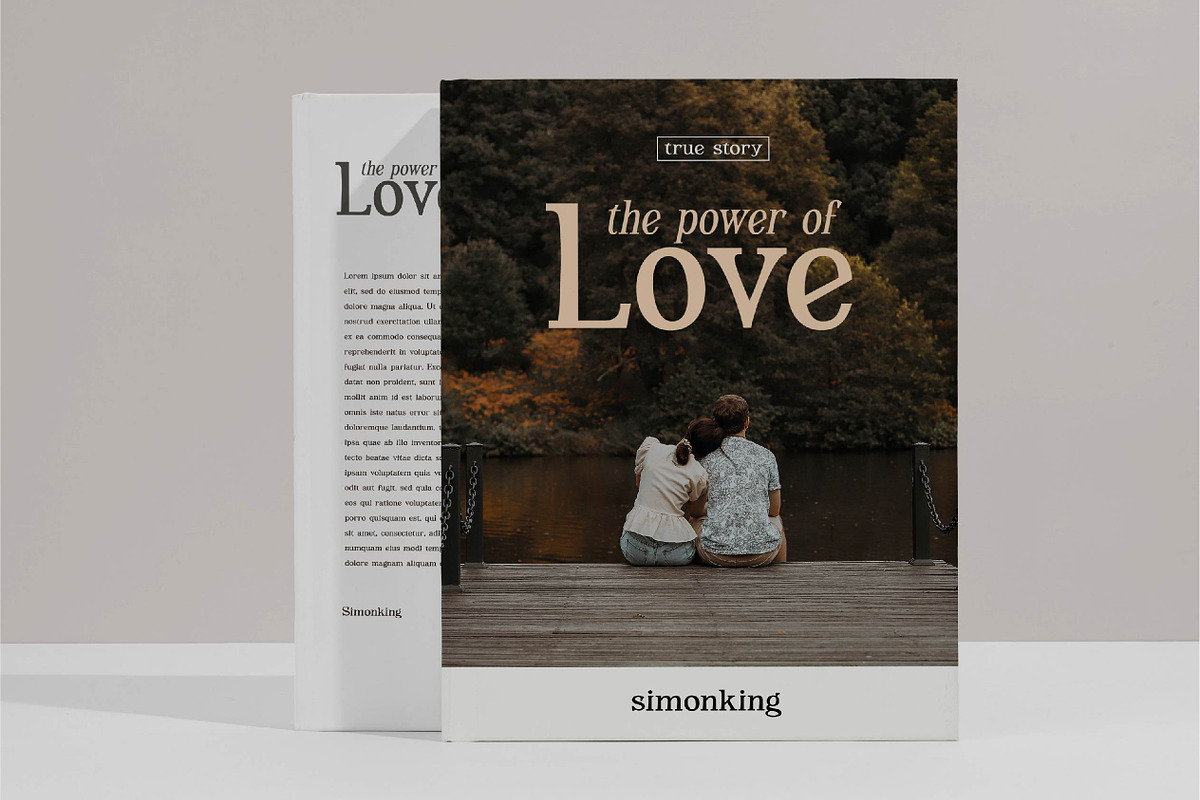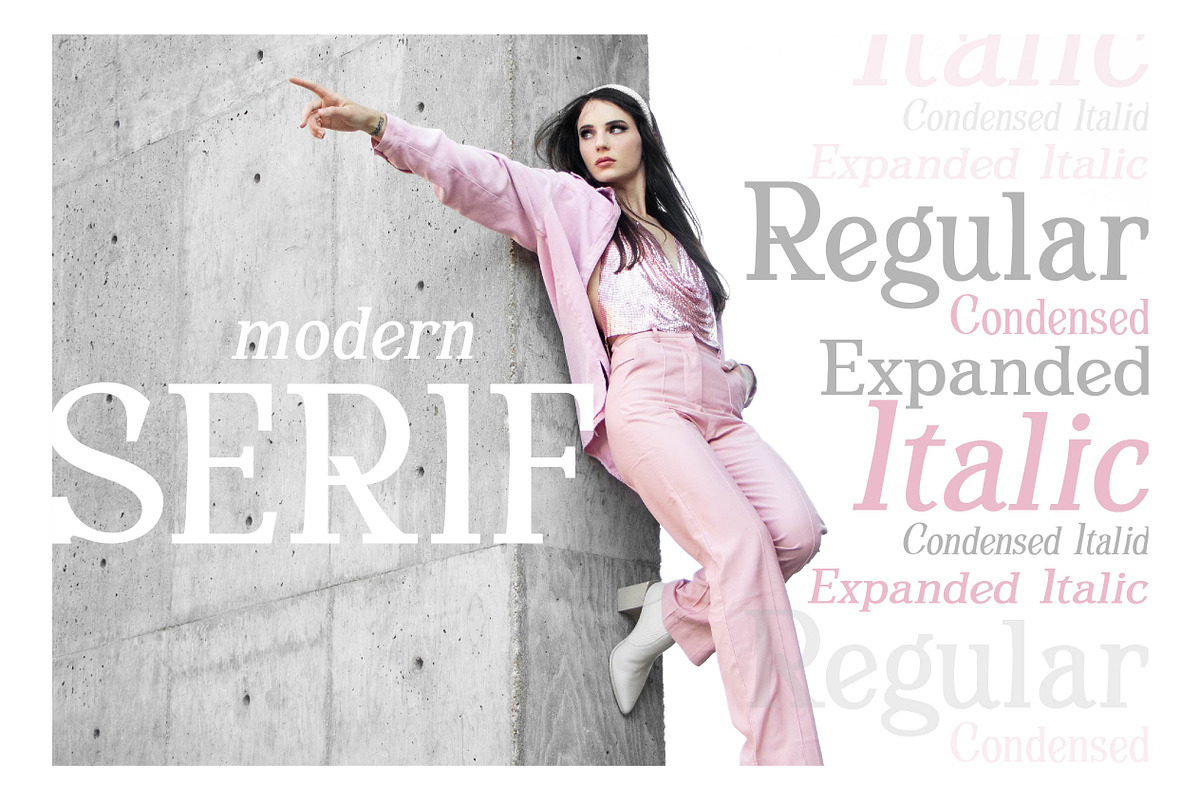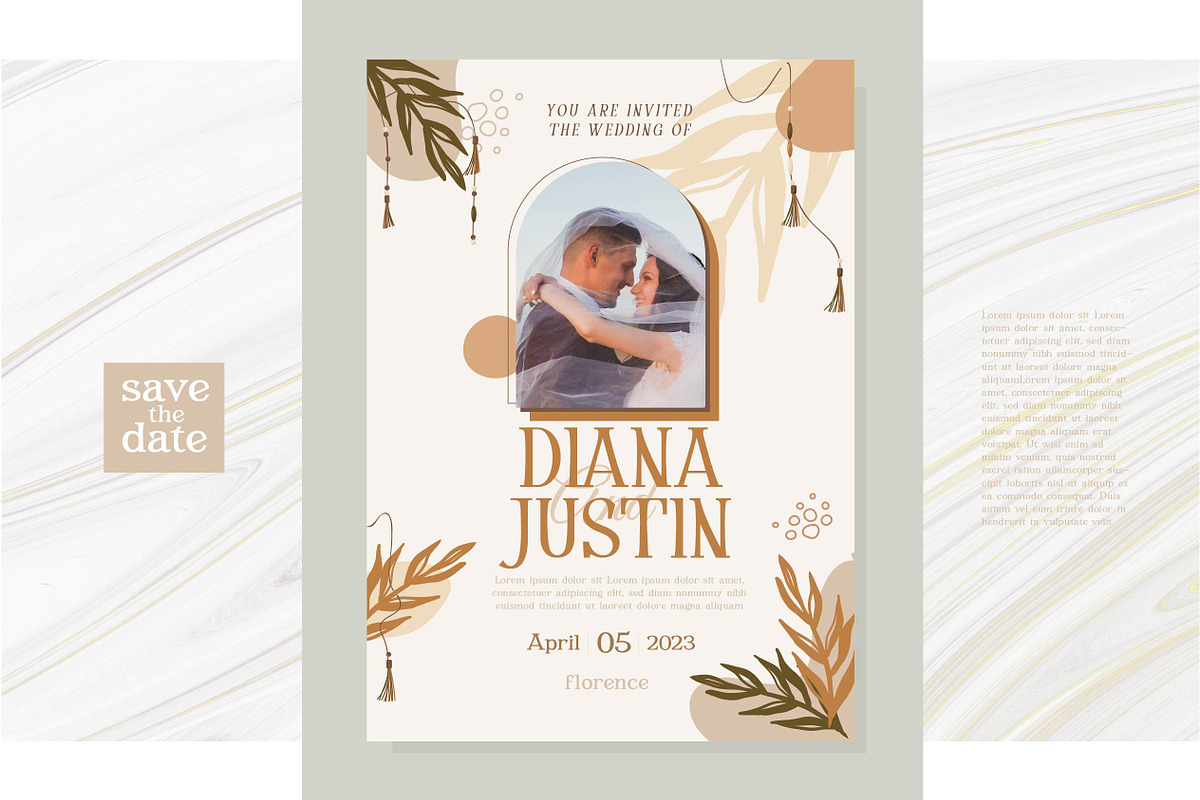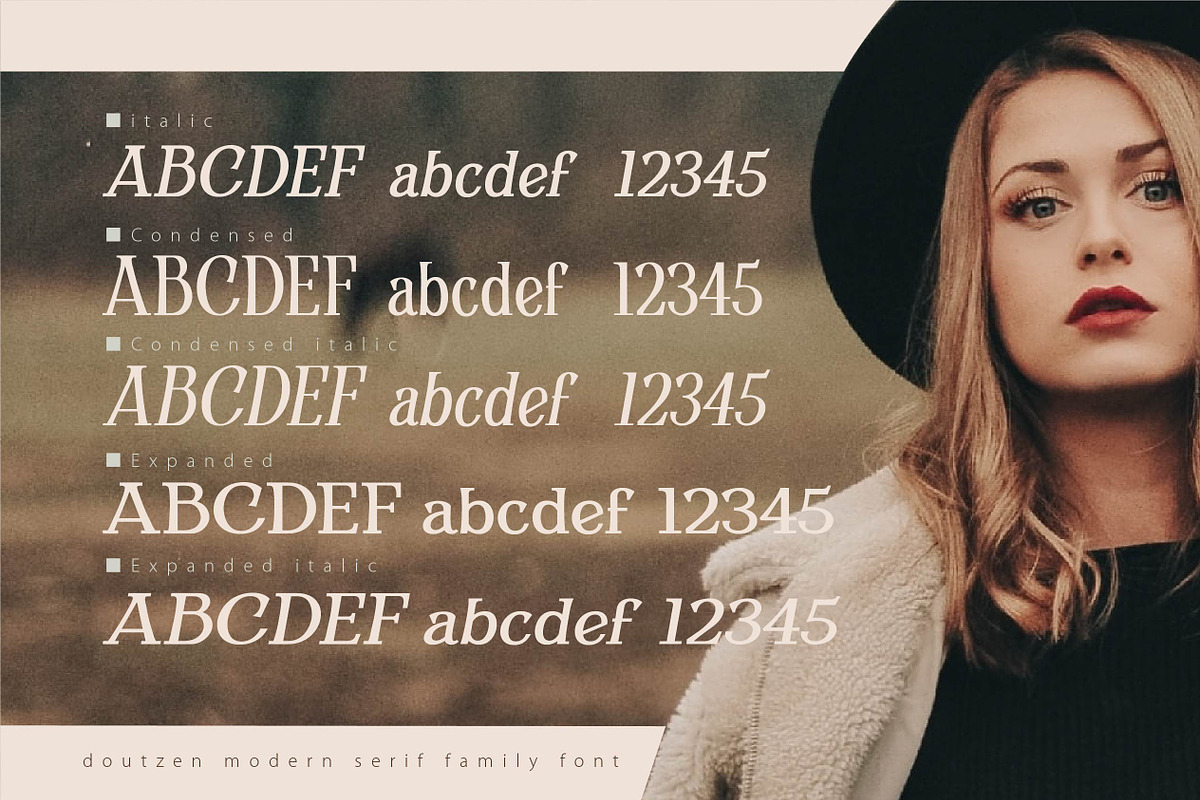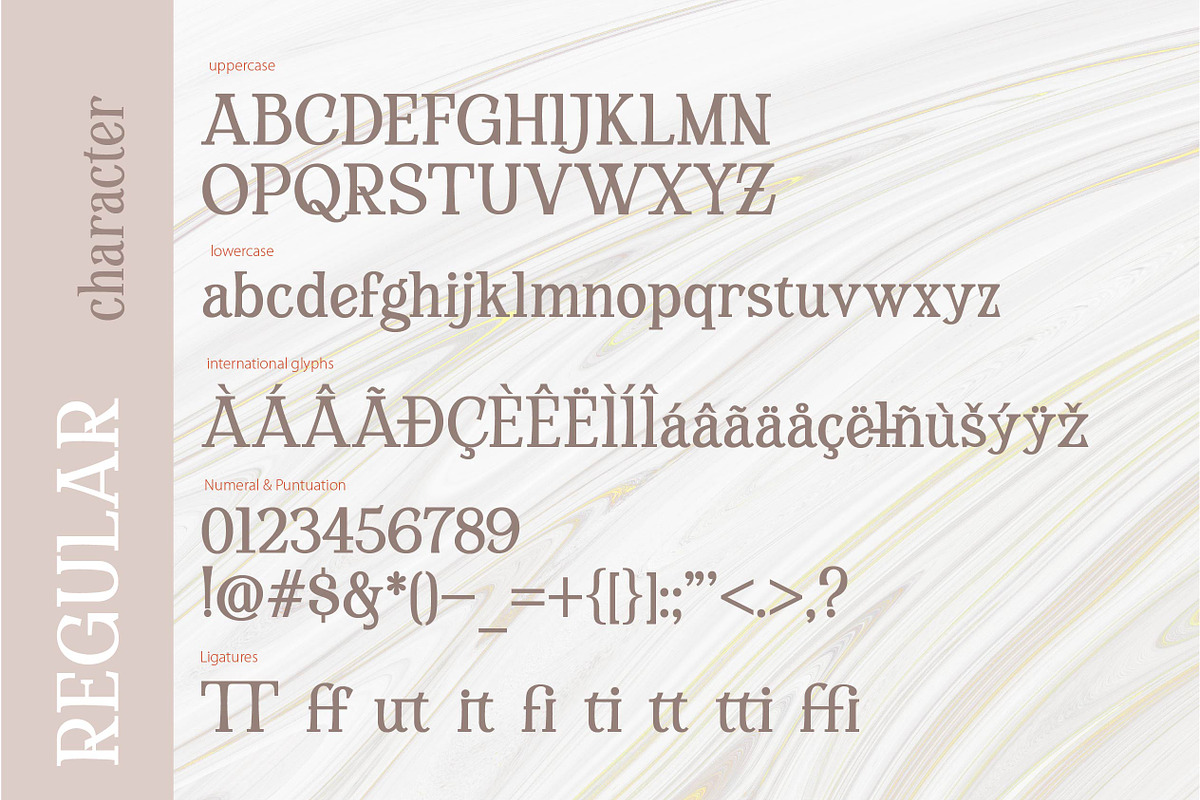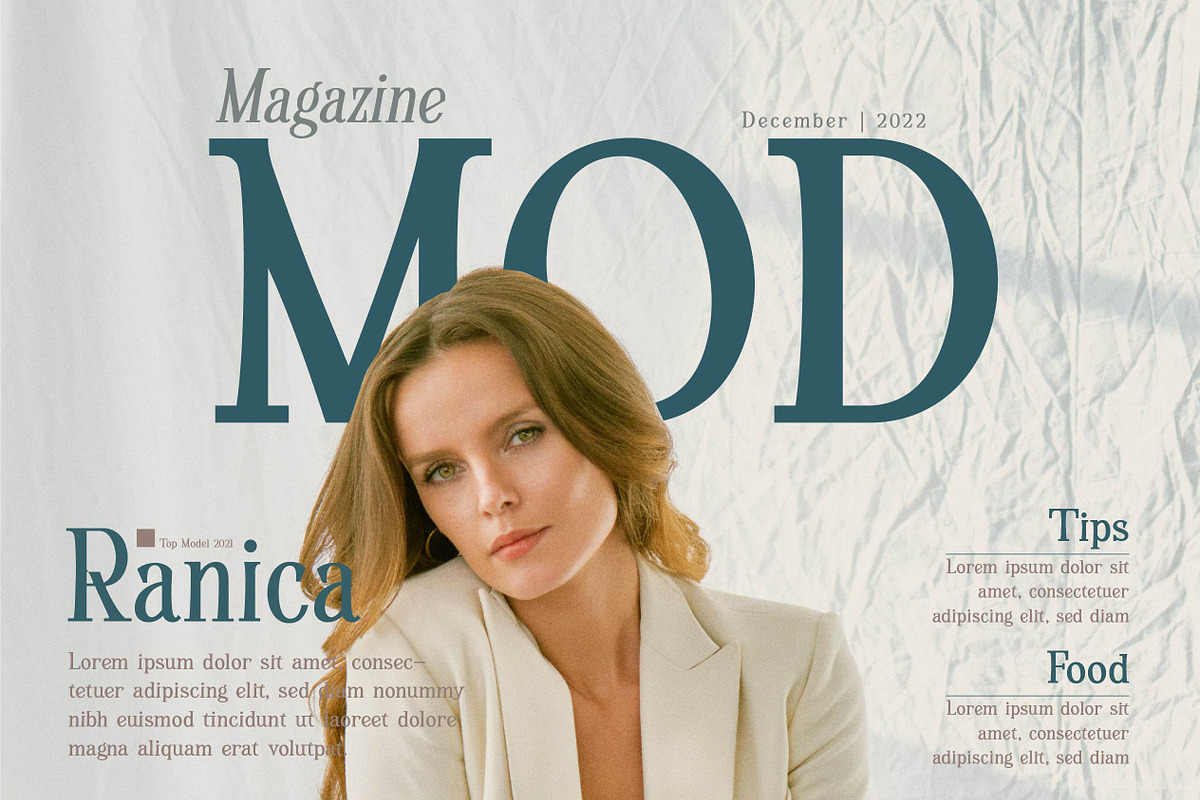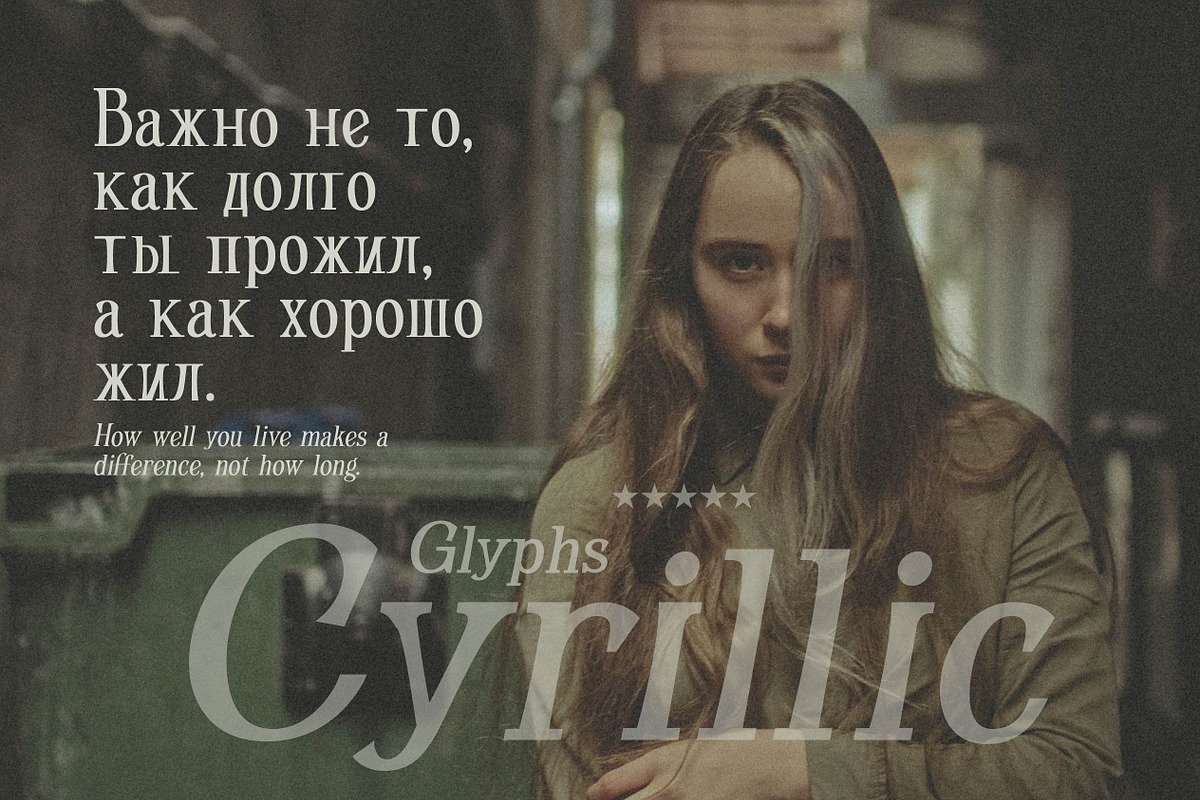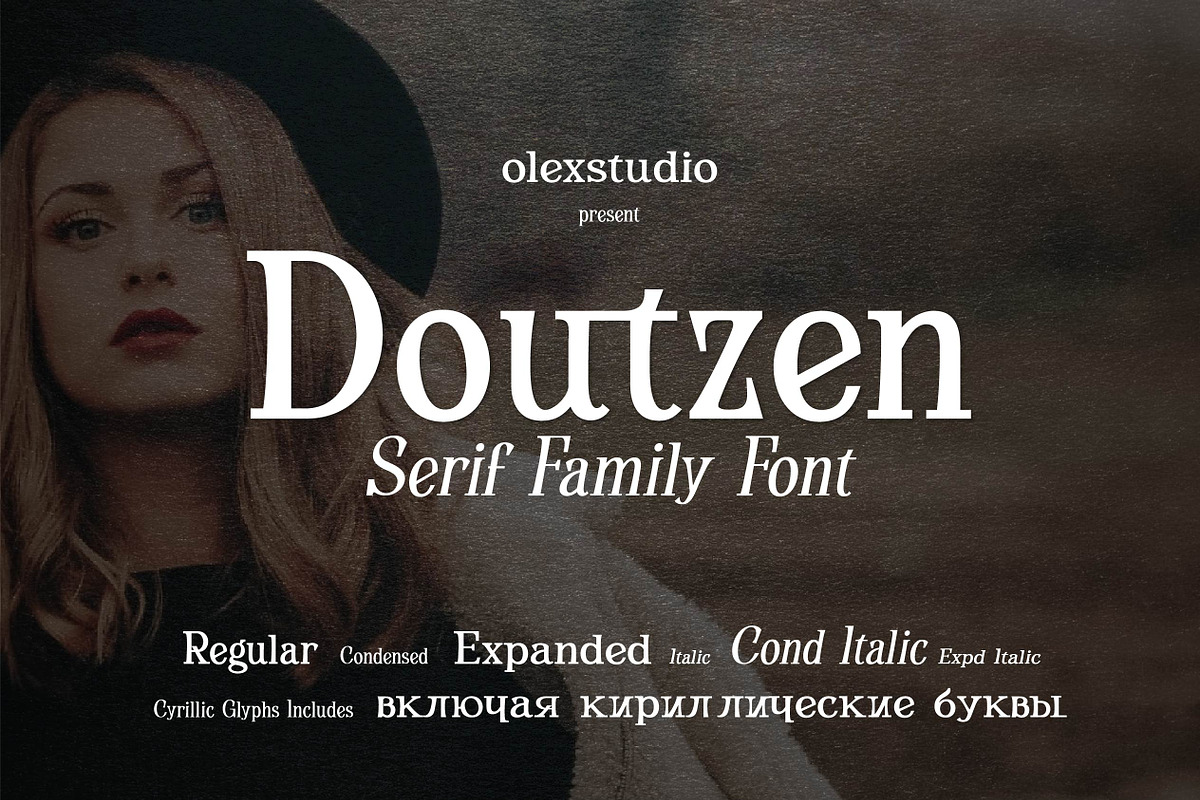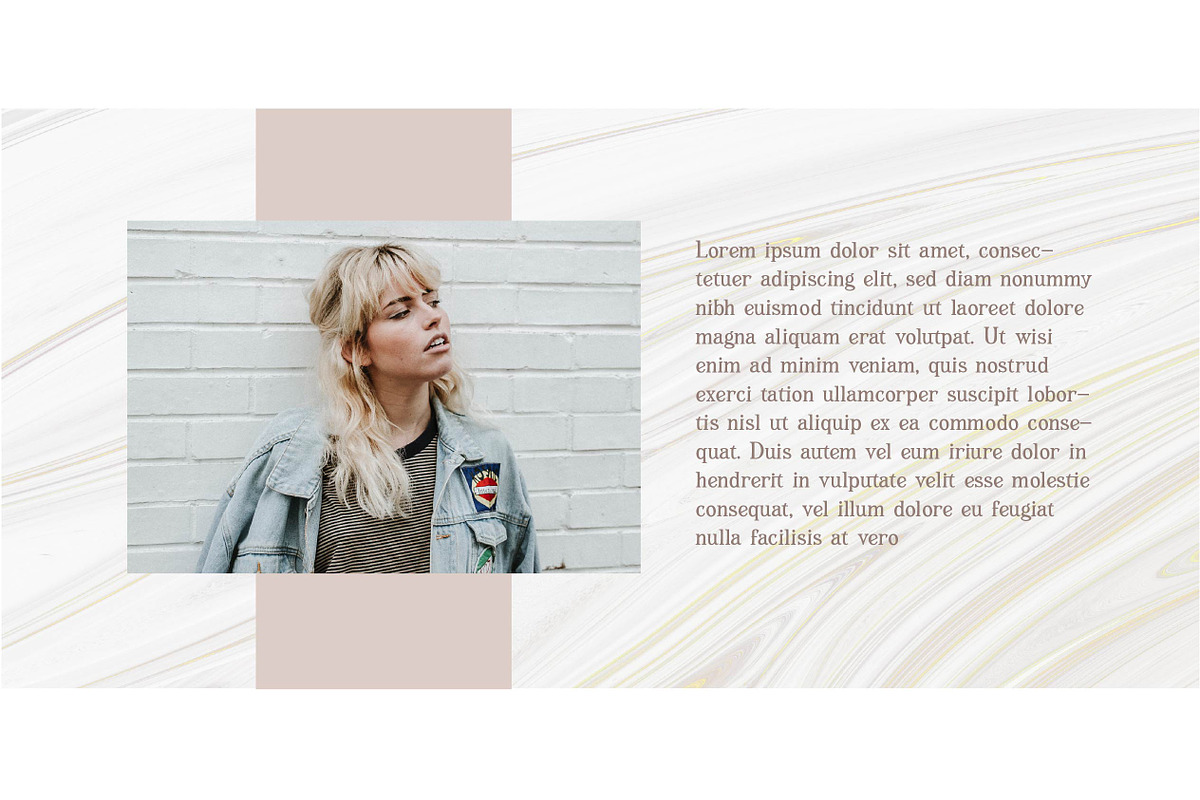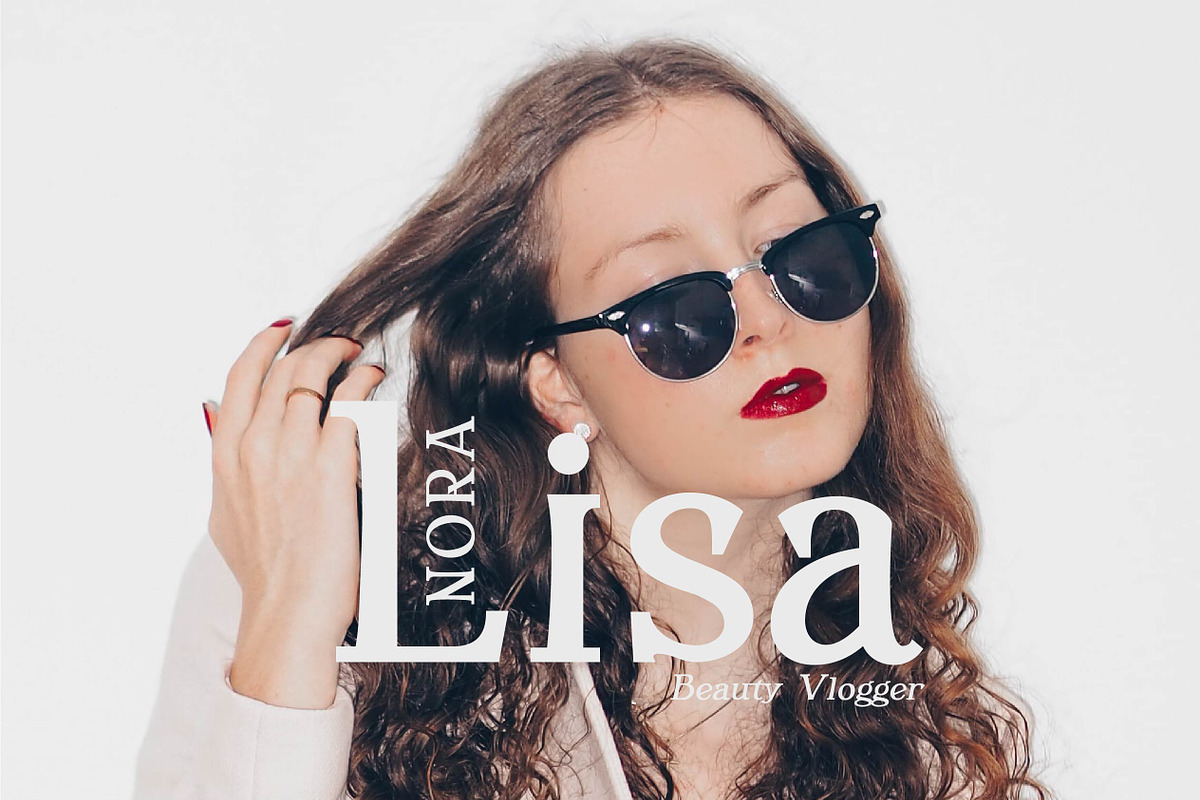
Doutzen - Modern Serif
Doutzen font shape is very good for a variety of your design products, with a firm shape that gives the impression of luxury and elegance, there are Russian glyphs in Doutzen font so you can create designs in various languages
Doutzen font contains standard characters, Lowercase, Uppercase, numbers, punctuation, ligatures Cyrillic glyphs and international glyphs. You will receive OTF, TTF files & WEBFONT.
- Doutzen regular
- Doutzen italic
- Doutzen Condensed
- Doutzen Condensed Italic
- Doutzen Expanded
- Doutzen Expanded Italic